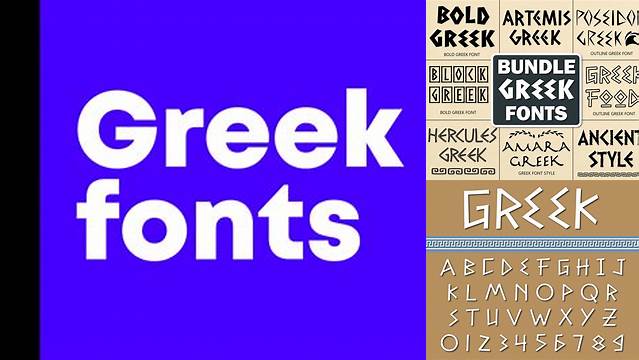
Adobe Fonts: Exploring Greek Styles & Typography
1. Understanding Greek Letterforms in Adobe Fonts
When we talk about Adobe Fonts with Greek style, we're not just talking about a specific font family. It's about understanding the nuances of Greek letterforms themselves. The Greek alphabet, with its unique characters and historical significance, offers a rich palette for designers. Think about the iconic strokes of the capital letters in ancient inscriptions, or the flowing curves of the lowercase script. Recognizing these elements will help you choose the right font and use it effectively in your designs. Understanding these basics is crucial for selecting fonts that truly capture the essence of Greek aesthetics. We'll explore different categories like serif, sans-serif, and display fonts, each offering a unique take on Greek typography. Choosing the right font depends on the project’s tone and target audience. A classical serif might suit a historical novel, while a modern sans-serif could be perfect for a tech startup's branding.
2. Serif Fonts with Greek Character Support in Adobe
Serif fonts, with their classic serifs (the little strokes at the ends of the letterforms), often evoke a sense of tradition and formality. Within the Adobe Fonts with Greek style library, there are numerous serif fonts that perfectly support Greek characters. These fonts can range from faithful recreations of ancient Greek inscriptions to modern interpretations that blend classical elements with contemporary design. When choosing a serif font, consider the weight and spacing. A heavier weight might be ideal for headlines, while a lighter weight might be better suited for body text. Experiment with different font sizes and line heights to find the perfect balance for your design. Thinking about readability is key. Even the most beautiful font is useless if your audience can’t easily read your text. Consider testing the font with different color combinations and backgrounds to ensure optimal readability.
3. Sans-Serif Fonts with Greek Glyphs on Adobe Fonts
Sans-serif fonts, known for their clean and modern appearance, also have a place in the world of Adobe Fonts with Greek style. These fonts, lacking the serifs found in their traditional counterparts, offer a more contemporary take on Greek typography. They're often used in designs aiming for a sleek, minimalist aesthetic. Adobe Fonts boasts a vast selection of sans-serif options that include Greek glyphs, making them versatile for a wide range of projects. When working with sans-serif fonts, pay close attention to the letter spacing and kerning. These details can significantly impact the readability and visual appeal of your text. Sans-serif fonts are not just for modern designs; they can also provide a fresh and unique twist to classical themes. Remember, consistency is key. If you’re using a sans-serif font for headings, consider using a complementary serif font for body text, or vice versa. This creates a visual hierarchy that guides the reader through your design.
4. Display Fonts: Adding Flair with Greek Characters in Adobe
Display fonts are the showstoppers of the font world! They're designed to grab attention and make a statement, and when it comes to Adobe Fonts with Greek style, display fonts can really shine. These fonts often feature unique and stylized letterforms, perfect for headlines, logos, and other design elements where visual impact is crucial. Adobe Fonts offers a treasure trove of display fonts that incorporate Greek characters, from bold and dramatic designs to elegant and ornate styles. However, remember that display fonts are best used sparingly. Overusing them can overwhelm your design and make it difficult to read. When choosing a display font, make sure it aligns with the overall tone and message of your project. A playful, whimsical font might be great for a children's book, but not so much for a serious academic paper. Experiment with different combinations to see what works best for your specific design needs.
5. Adobe Font Packs for Greek Typography Projects
Sometimes, choosing individual fonts can feel like a daunting task. That's where Adobe Font Packs come in handy! These curated collections often group fonts that complement each other perfectly, saving you time and effort. For Adobe Fonts with Greek style, font packs can be a fantastic resource, providing a cohesive set of typefaces that work seamlessly together. These packs might include a mix of serif, sans-serif, and display fonts, all designed to support Greek characters. When exploring font packs, look for sets that offer a variety of weights and styles within the same family. This gives you more flexibility when designing different elements of your project, from headings to body text. Always consider the license agreement of the font pack to ensure it fits your usage requirements, especially for commercial projects. Thinking about the overall aesthetic you’re aiming for will help you narrow down your choices. Are you after a classical look, a modern feel, or something in between?
6. Pairing Greek Fonts with Other Typefaces in Adobe
One of the most crucial skills in typography is the art of font pairing. Combining different fonts effectively can create visual interest and enhance the overall aesthetic of your design. When working with Adobe Fonts with Greek style, you'll often need to pair your Greek fonts with other typefaces, such as Latin or Cyrillic scripts. The key is to find fonts that complement each other without clashing. Consider the contrast between the fonts. Pairing a bold, attention-grabbing display font with a simple, readable body text font is a common strategy. Alternatively, you can choose fonts that share similar characteristics, such as the same x-height or stroke weight, for a more harmonious look. Experiment with different pairings and always prioritize readability. A beautiful design is useless if your audience can’t easily read the text. Think about the emotional impact of your font choices. Do they convey the mood and message you’re aiming for?
7. Using Greek Glyphs in Adobe Creative Cloud Applications
Adobe Creative Cloud applications, such as Photoshop, Illustrator, and InDesign, offer seamless integration with Adobe Fonts. This makes it incredibly easy to access and use Adobe Fonts with Greek style in your designs. Within these applications, you can typically access the glyph panel, which allows you to insert specific Greek characters that might not be readily available on your keyboard. This is especially useful for accessing accented characters or alternative glyph variations. Familiarize yourself with the glyph panel in your chosen application. It can be a lifesaver when working with complex typography. Use the search function within the glyph panel to quickly find the specific character you need. Learning keyboard shortcuts for frequently used glyphs can also boost your workflow. Make sure your software is up-to-date to ensure compatibility with the latest font features and glyph sets.
8. Adobe Fonts for Classical Greek Text and Documents
If you're working on projects that involve classical Greek text, such as historical documents or academic papers, choosing the right Adobe Fonts with Greek style is paramount. You'll want fonts that accurately represent the nuances of ancient Greek letterforms, while also maintaining readability. Some serif fonts are specifically designed for classical texts, offering a faithful reproduction of the characters used in ancient inscriptions and manuscripts. Consider consulting with experts in classical Greek typography to ensure your font choices are appropriate for your project. The goal is to create a design that is both visually appealing and historically accurate. Think about the intended audience for your document. Will they be familiar with classical Greek conventions, or will you need to provide additional context? Make sure the font you choose is legible at various sizes, as classical texts often require footnotes and small print. Pay attention to the spacing and kerning, as these details can significantly impact the readability of lengthy passages.